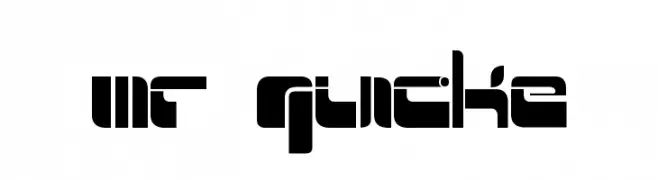
A bold, edgy font with a hand-drawn, gothic-inspired design.
A playful, bold font with rounded, hand-drawn characters and a whimsical style.
A bold, geometric font with a futuristic and digital aesthetic.
A bold, dynamic font with artistic flair and strong presence.
A bold, edgy font with sharp angles and a dynamic, rugged appearance.